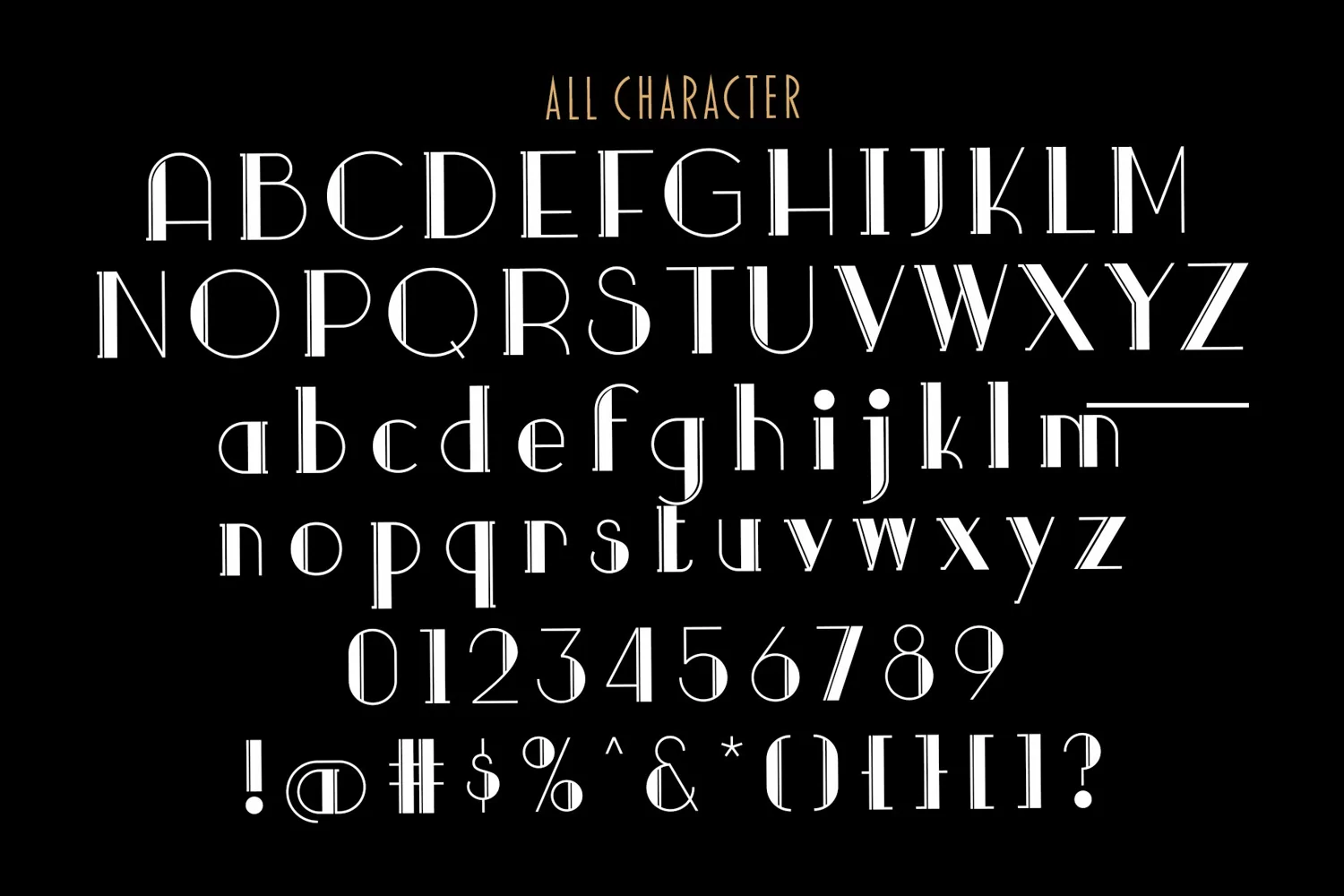
Pone is a display typeface. Perfect for display, poster, quotes, film, craft needs, book cover, business card, packaging, merchandise, branding, logo, logotype, header, title, and many more.